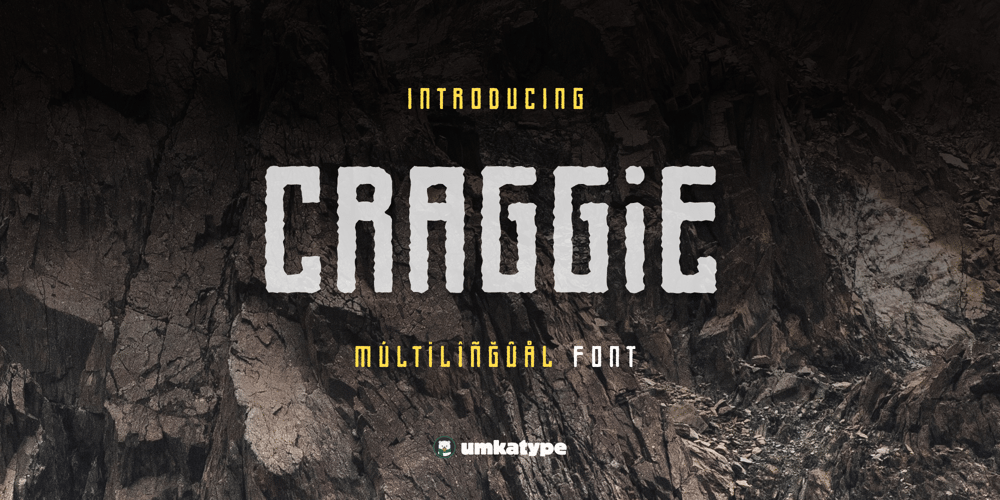
Craggie
Craggie font
Craggie Font Family was designed by Alper Çakıcı and published by Umka Type. Craggie contains 1 styles and family package options. Craggie is a modern, versatile and rough font with excellent kerning, making it ideal for both digital and print use. It features full support for the Cyrillic language, allowing for seamless multilingual communication. Craggie’s unique design combines classic proportions with a contemporary feel, making it stand out from other same categories fonts.